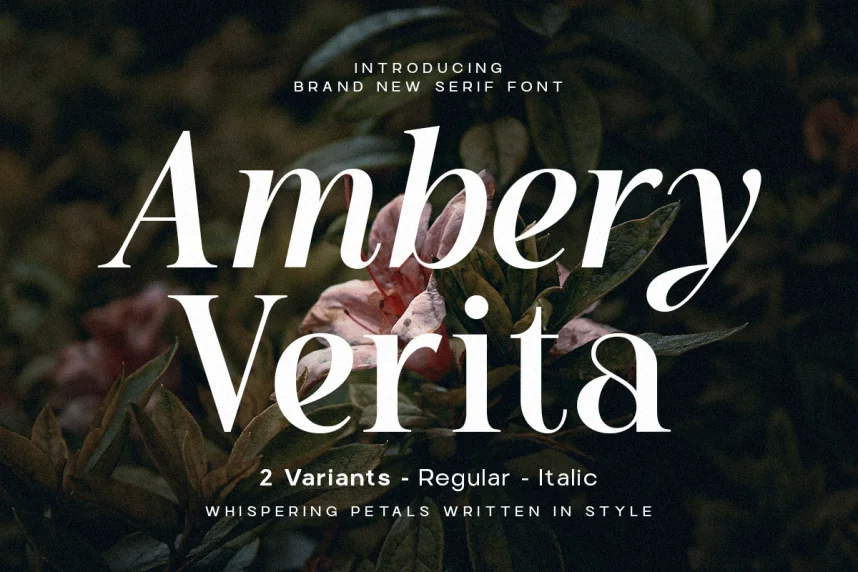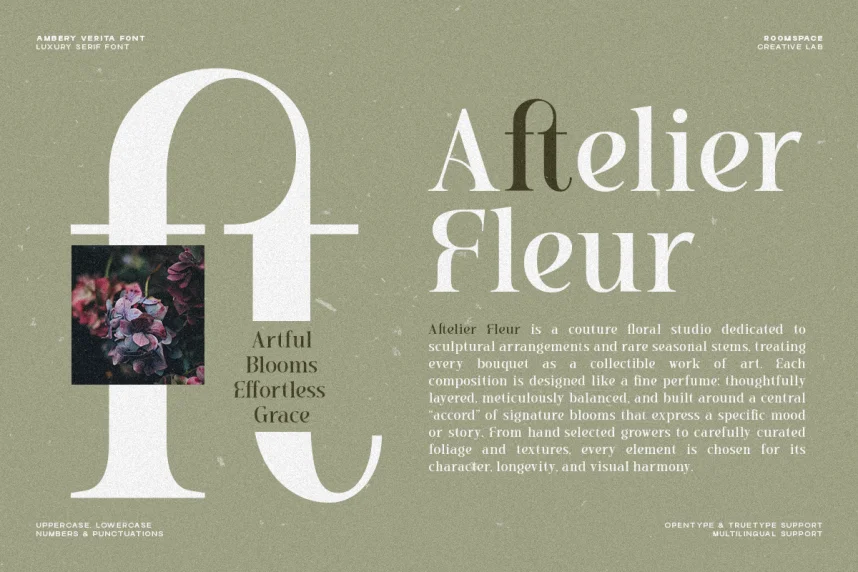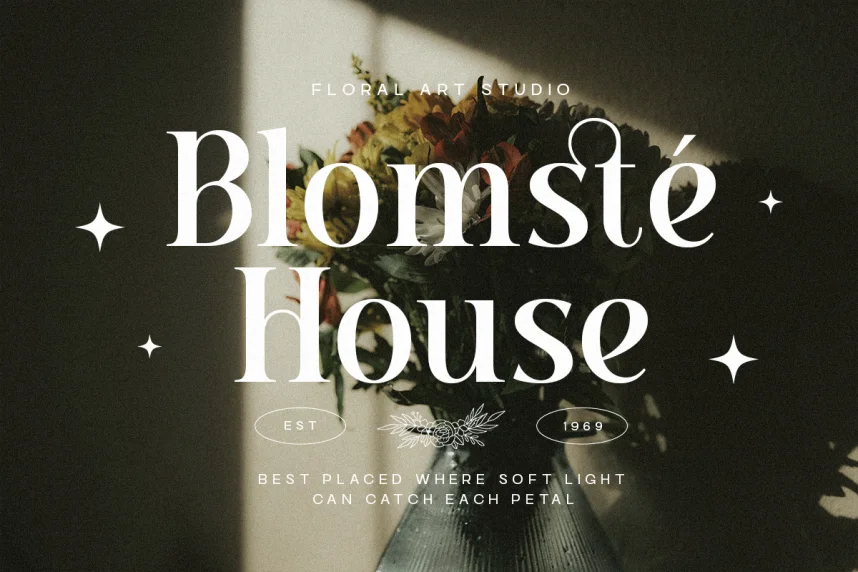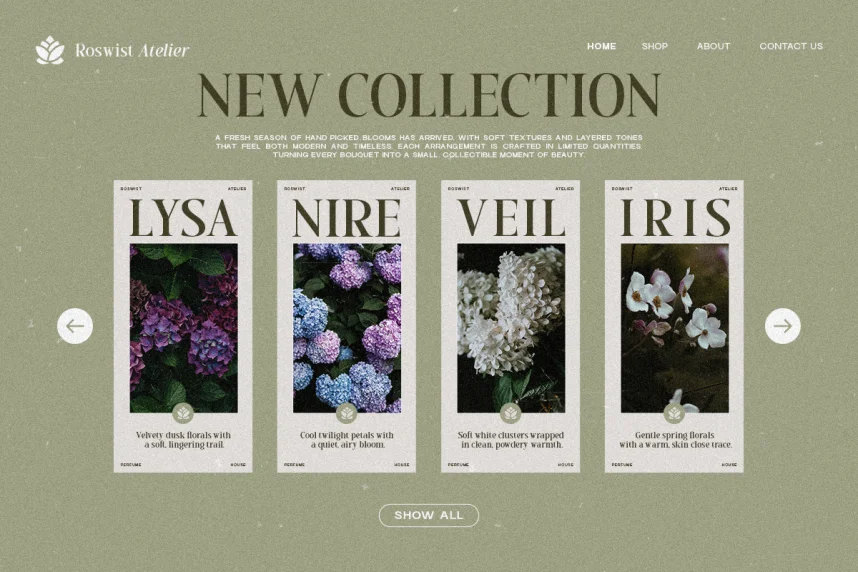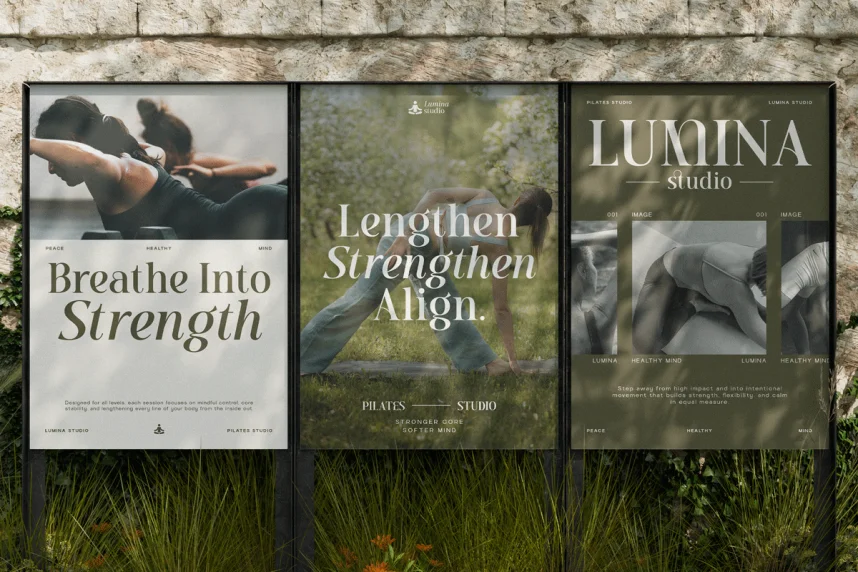
Ambery Verita Font addresses the need for structured serif typography in long-form reading. Many serif fonts struggle on screens due to tight spacing.
Ambery Verita is a serif typeface with balanced contrast, defined serifs, and steady rhythm. The letterforms support readability in print and digital environments.